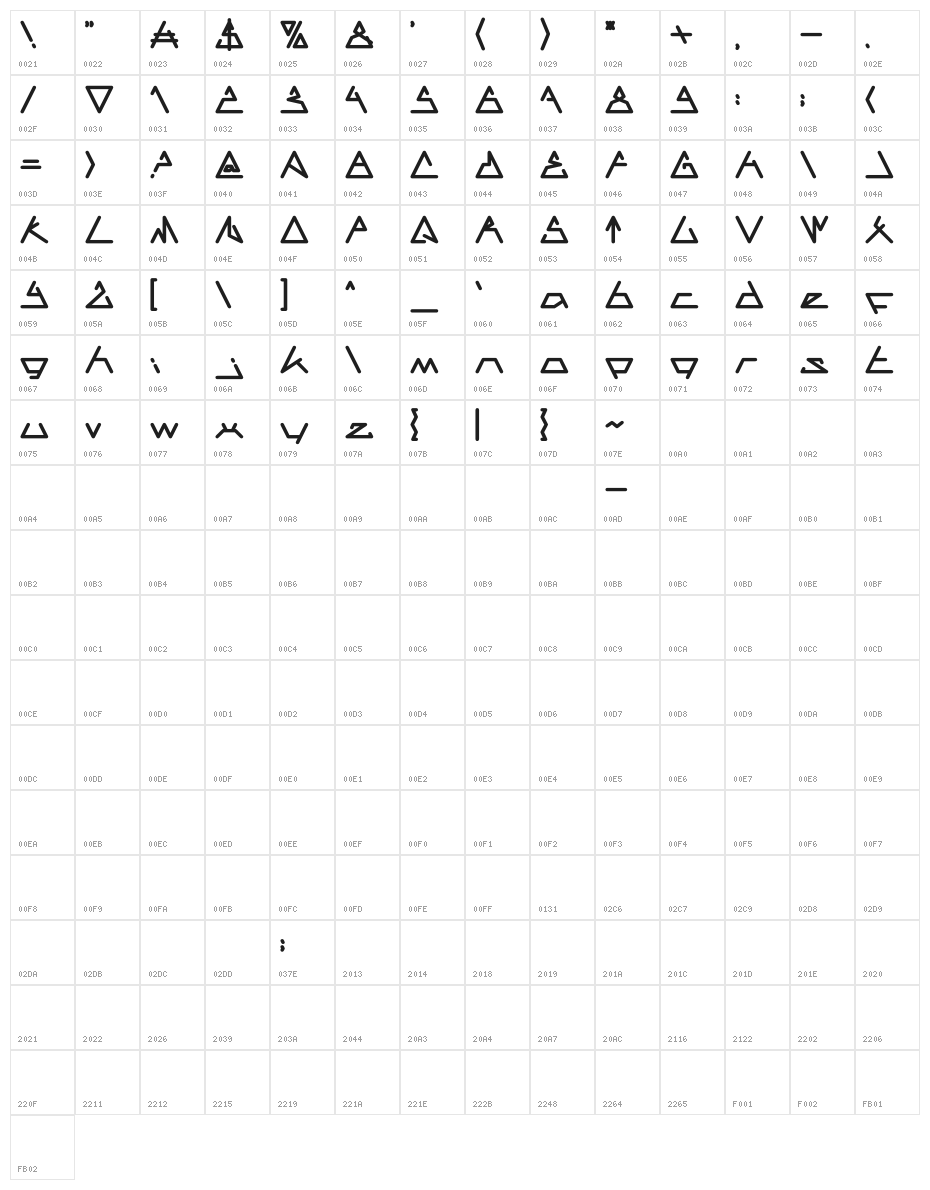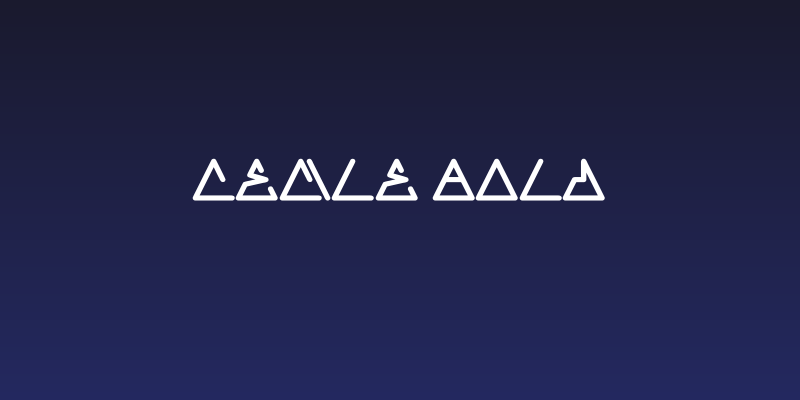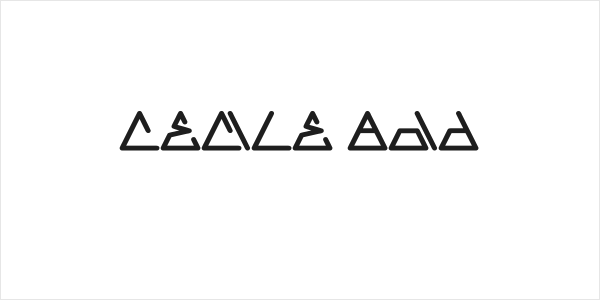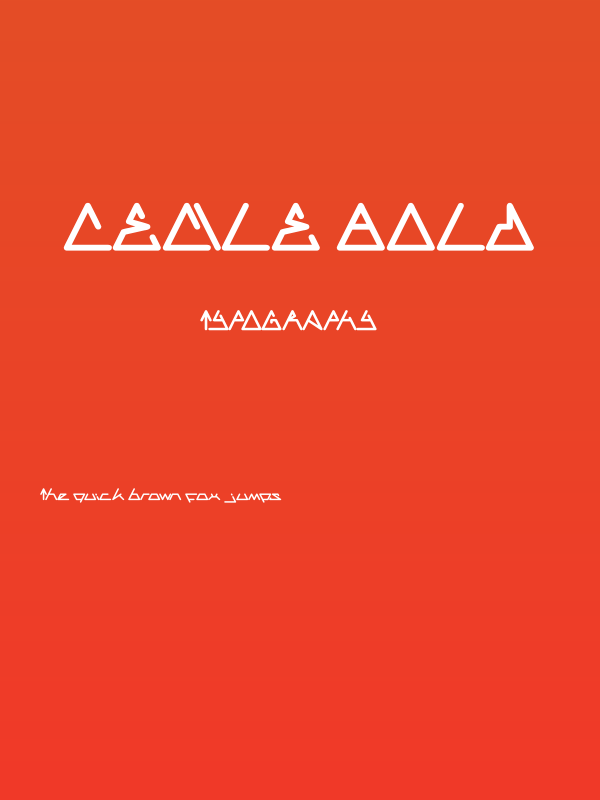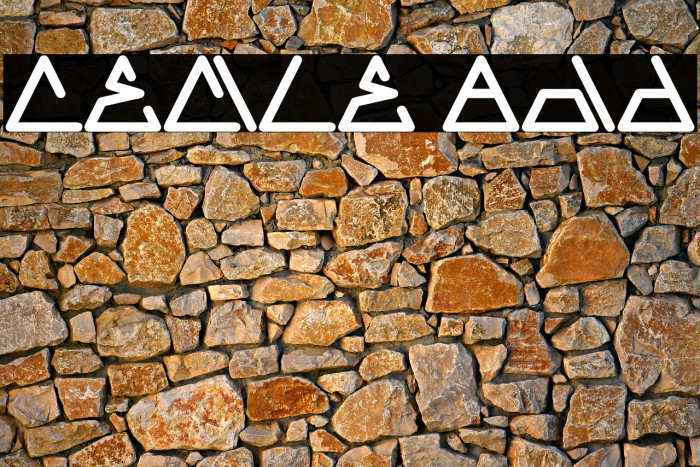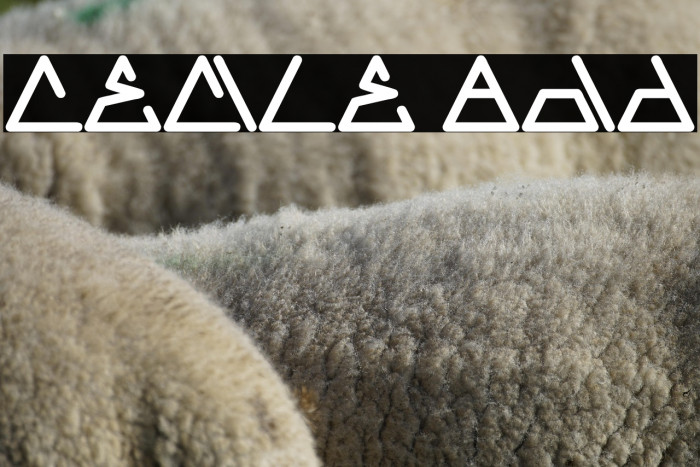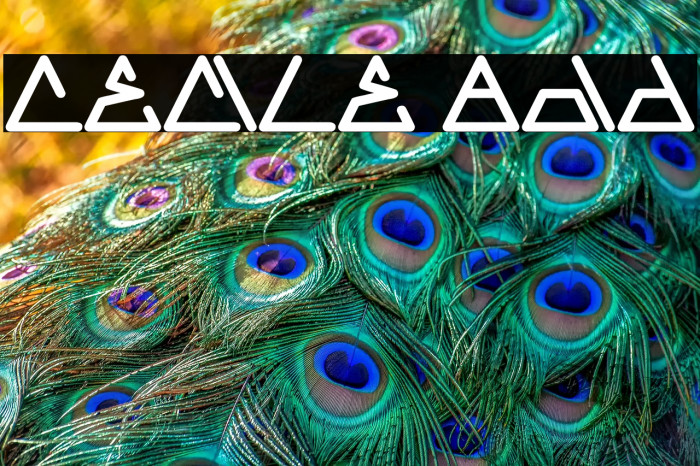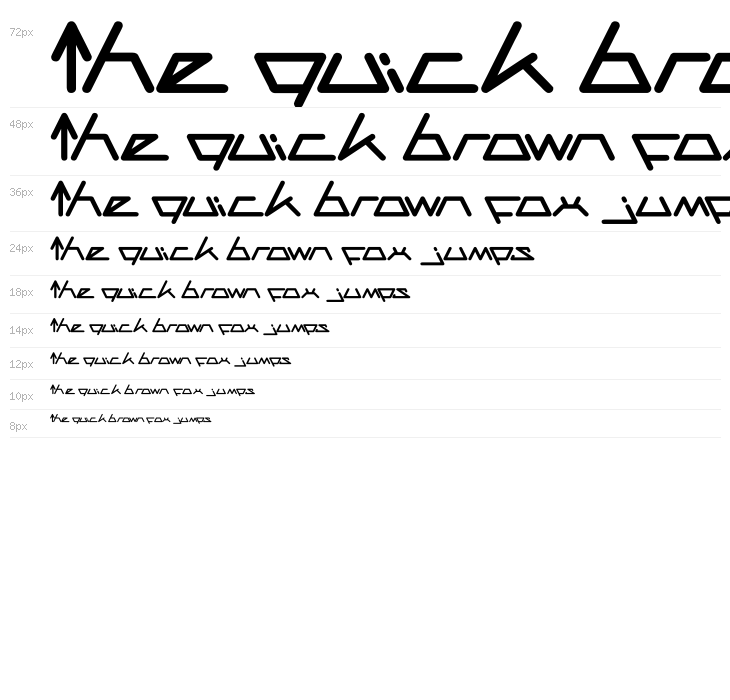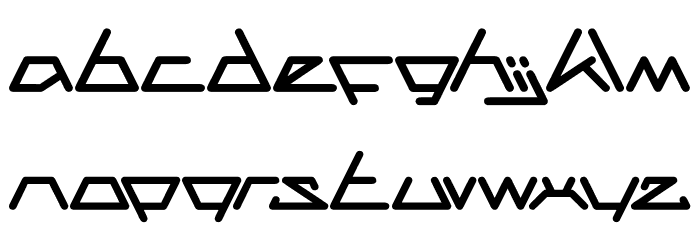
CECILE Bold Font
CECILE Bold Description
This font features a unique, futuristic design with angular and geometric shapes. The characters are constructed with bold, thick lines that create a sense of strength and modernity. The uppercase and lowercase letters maintain a consistent style, with sharp angles and straight edges that give the font a distinctive, tech-inspired appearance. Numbers and special characters follow the same design principles, ensuring a cohesive look across all elements. The font's boldness and geometric nature make it stand out, ideal for projects that require a modern and edgy aesthetic.
| Proposed Projects | Ideal for technology branding, sci-fi themed projects, video game interfaces, and modern posters. |